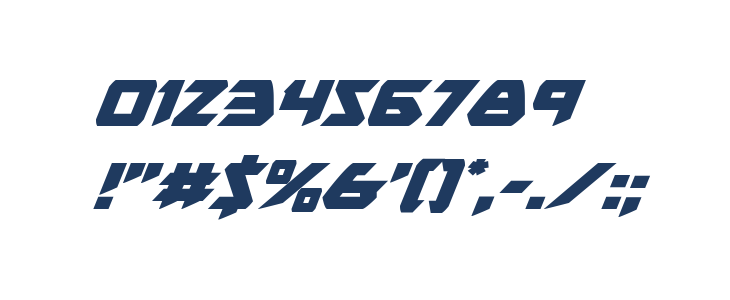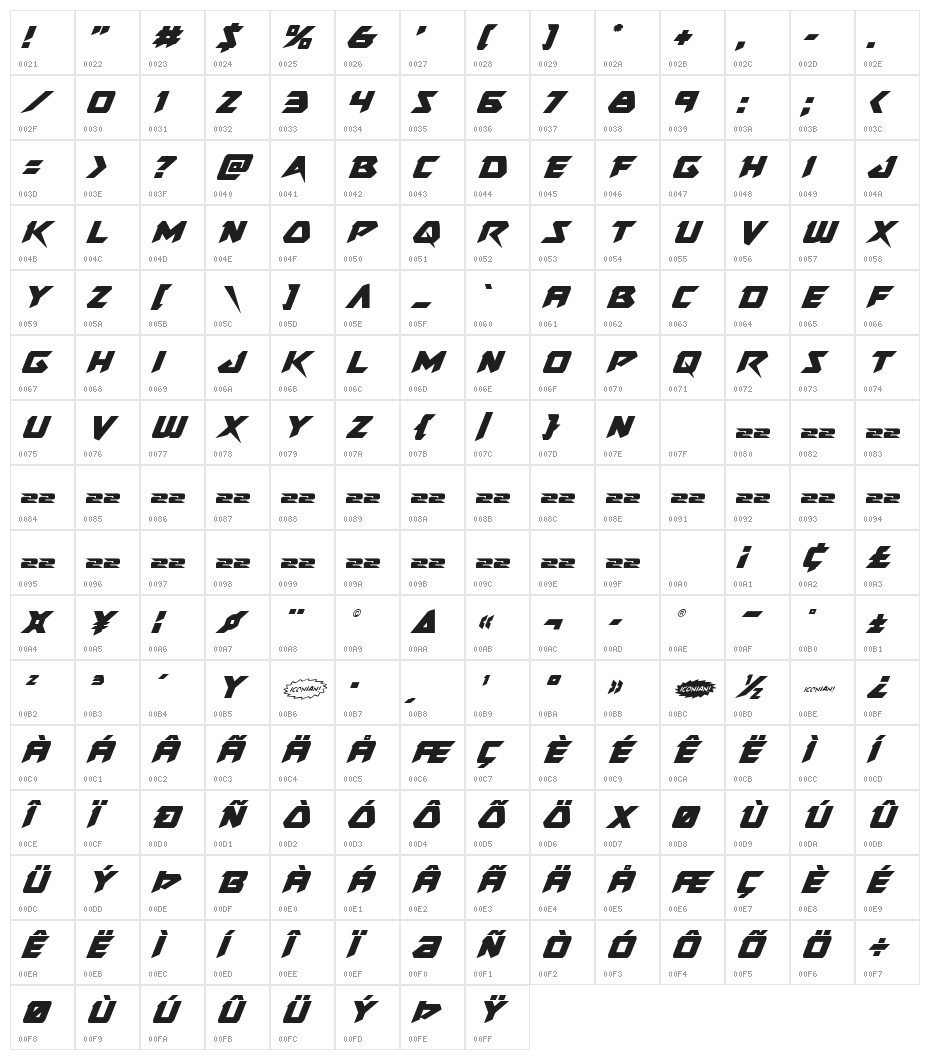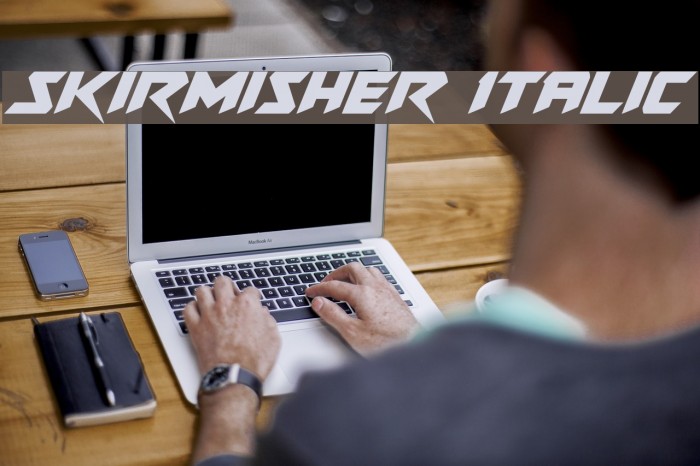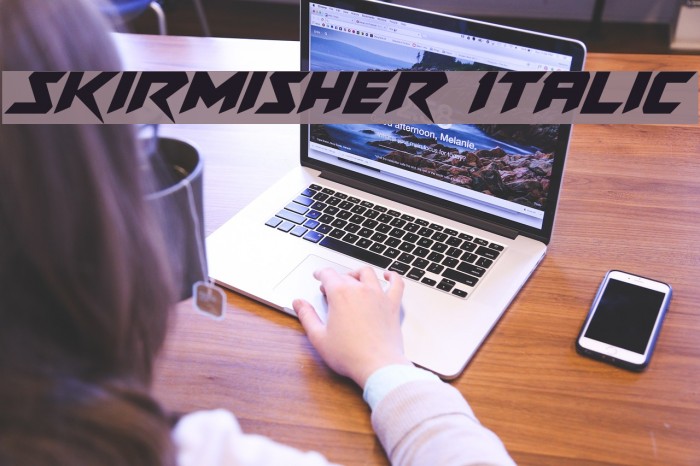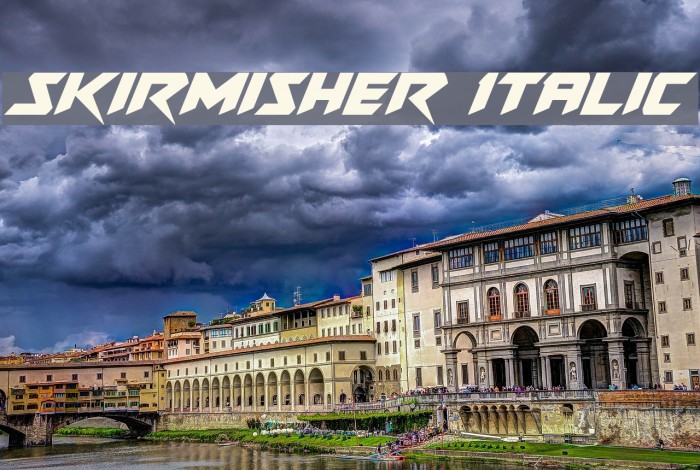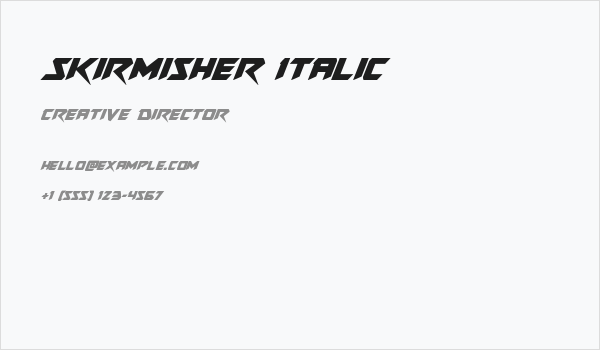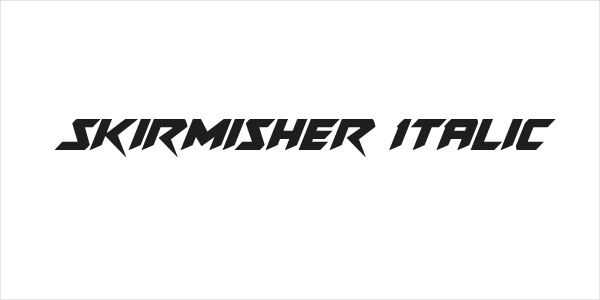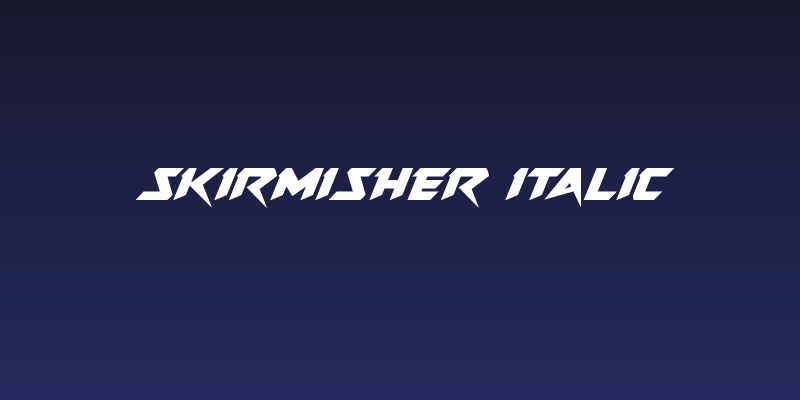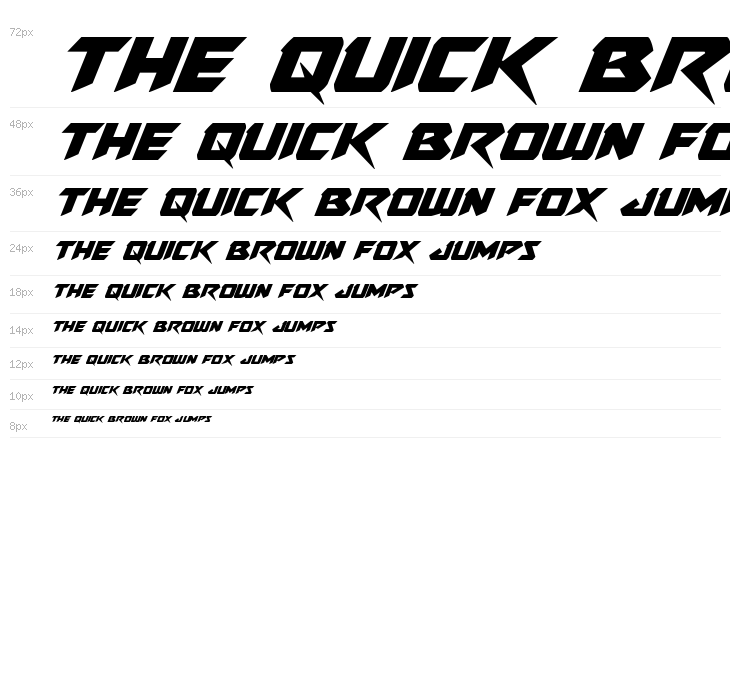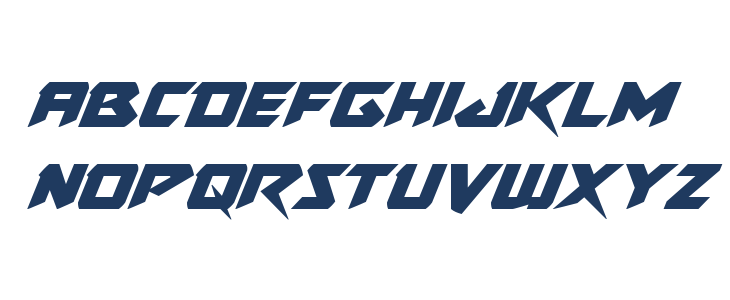
Skirmisher Italic Font
Skirmisher Italic Description
This font features a bold and aggressive design with sharp, angular edges and a dynamic, italicized slant. The characters are distinctly geometric, giving them a futuristic and edgy appearance. The uppercase and lowercase letters maintain a consistent style, with exaggerated points and a sense of motion. The numbers and special characters follow the same aesthetic, ensuring a cohesive look across all glyphs. The font's unique style makes it stand out, ideal for projects that require a strong visual impact.
| Proposed Projects | Ideal for video game titles, sci-fi movie posters, sports team logos, and edgy branding projects. |